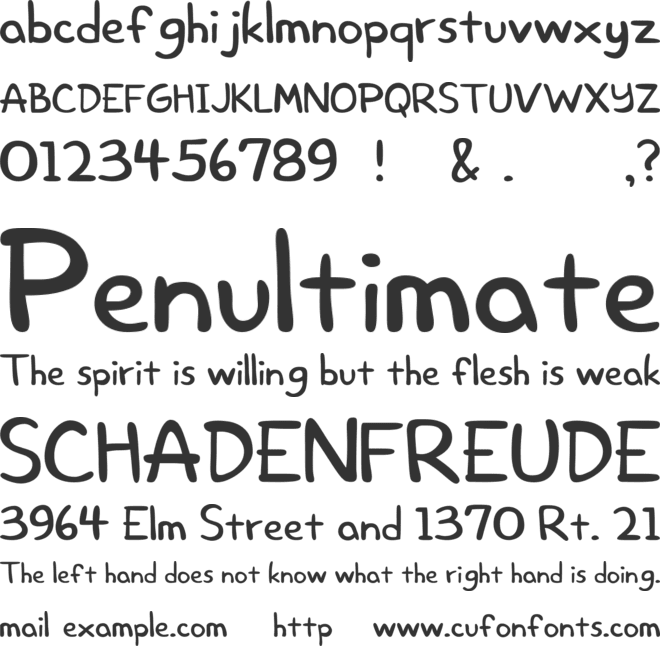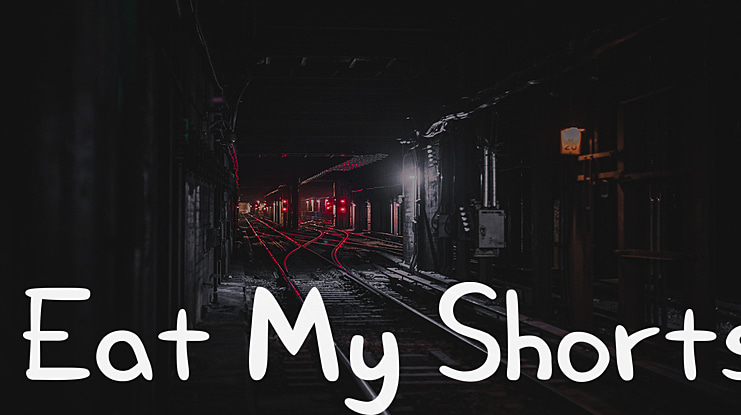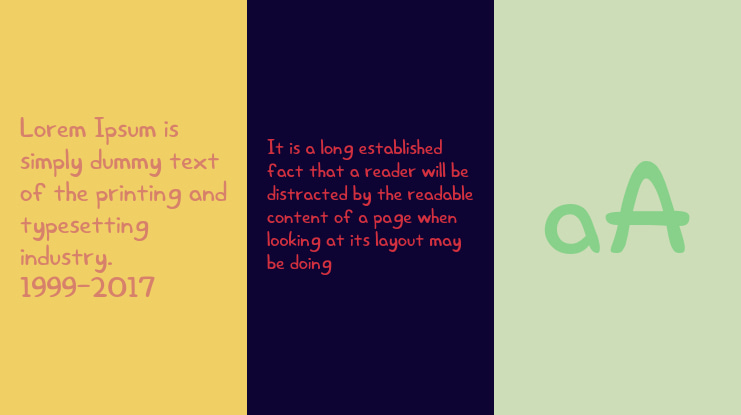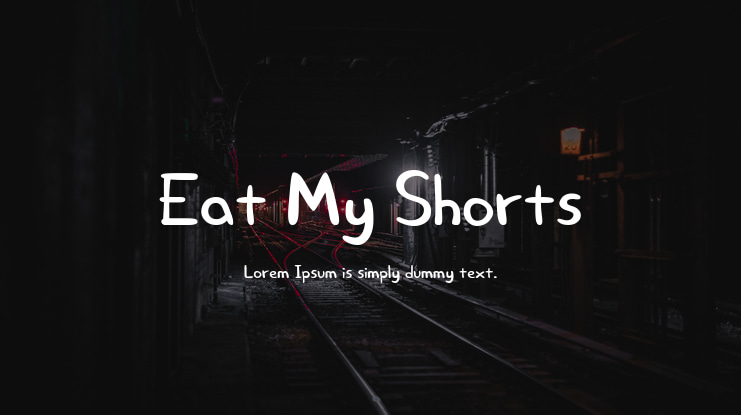
Eat My Shorts Font
I've recently been invested in the first few seasons of The Simpsons. So many funny moments and iconic catchphrases like "Ay caramba!", "D'oh!", "Don't have a cow, man" and more come from this show. So I took screenshots of the credits, then traced and smoothed them out in Inkscape. This is the most accurate Simpsons font at the moment, and even though the font is incomplete, I'll be adding more character support in the future.